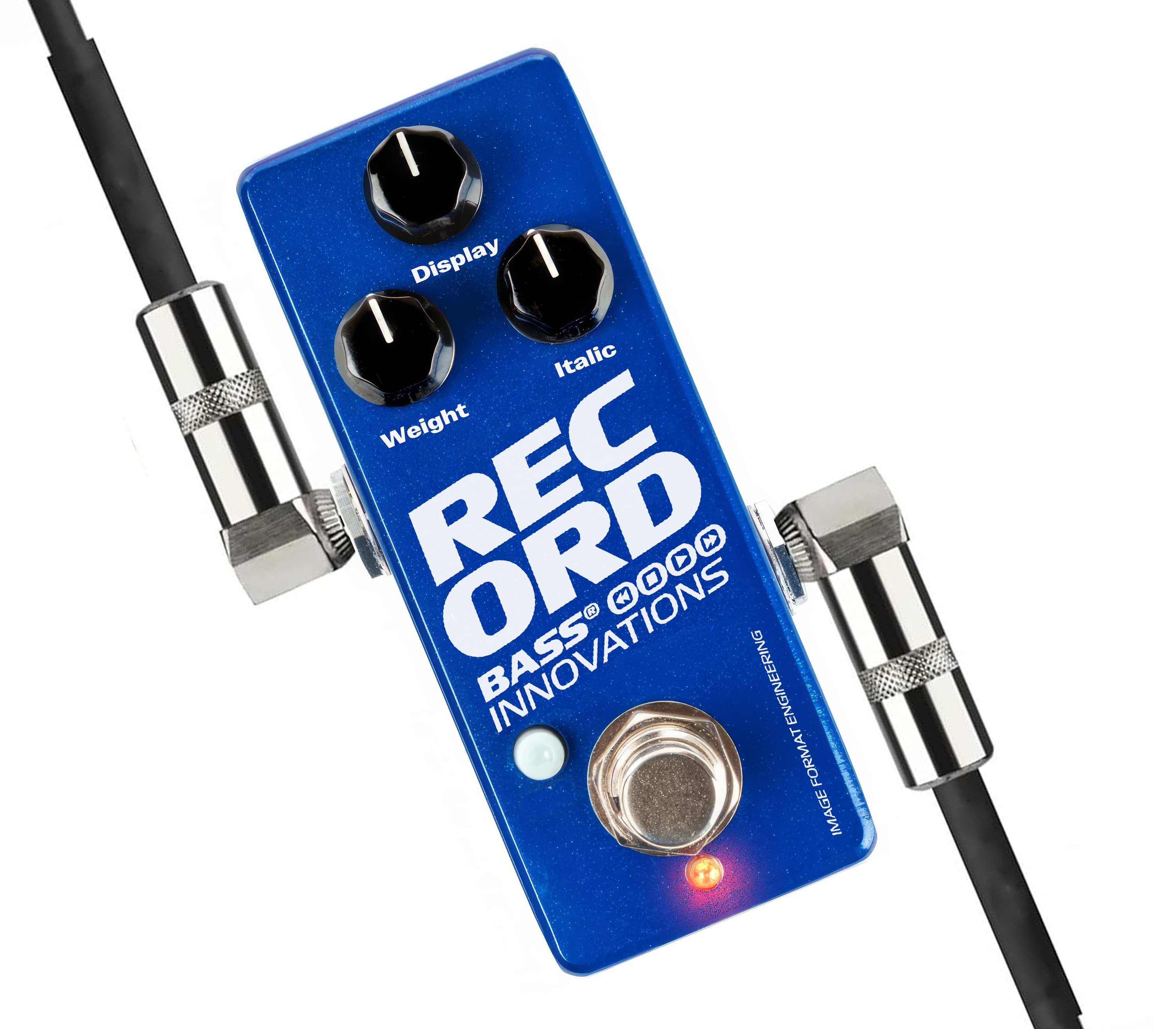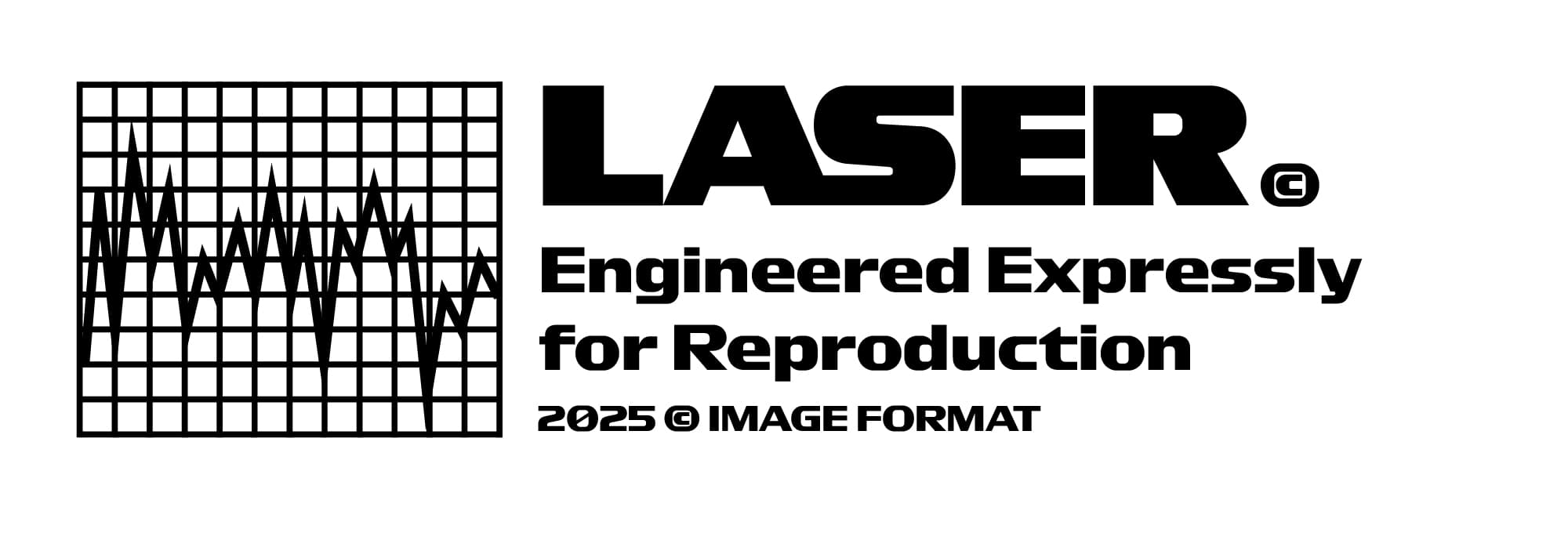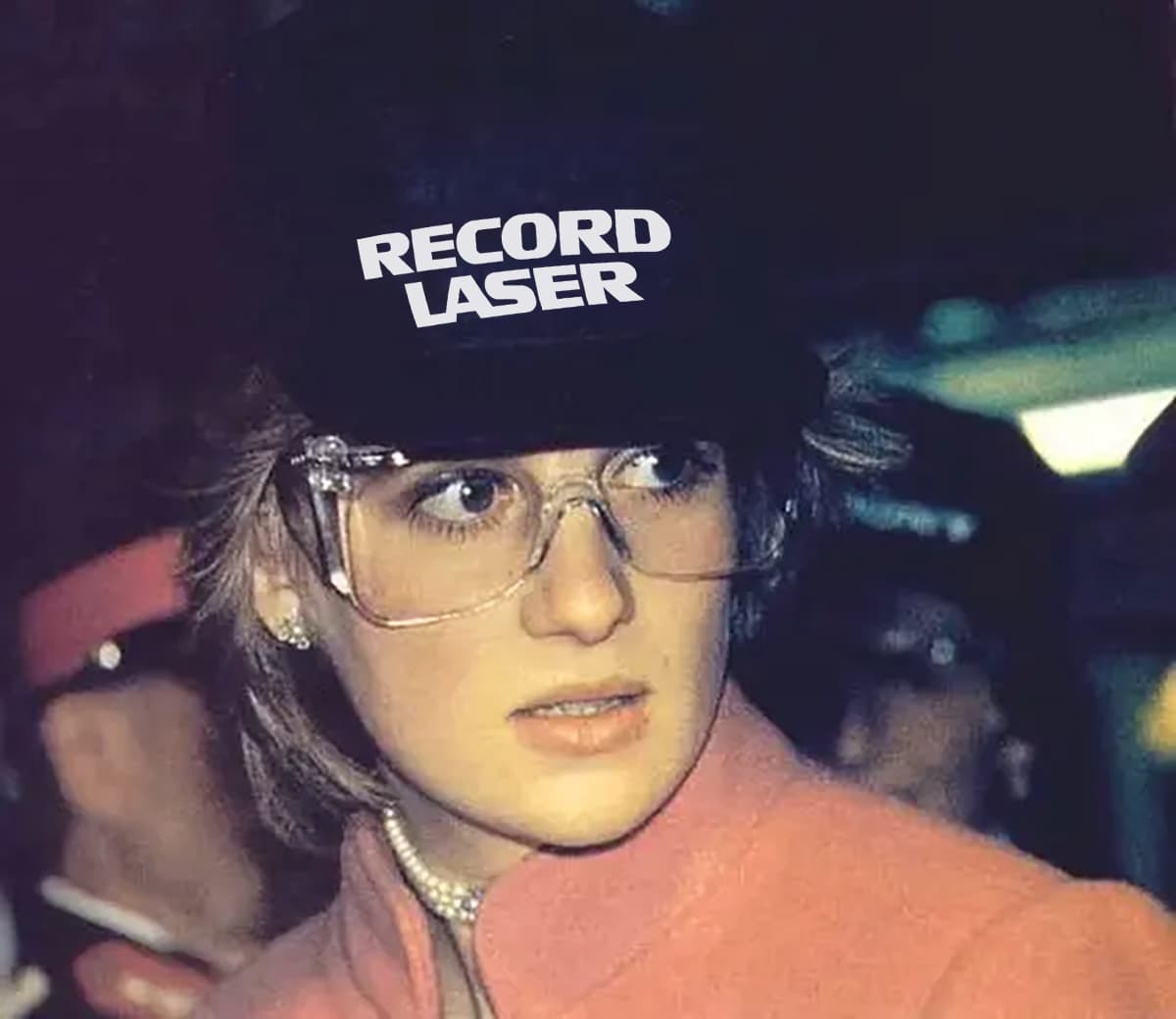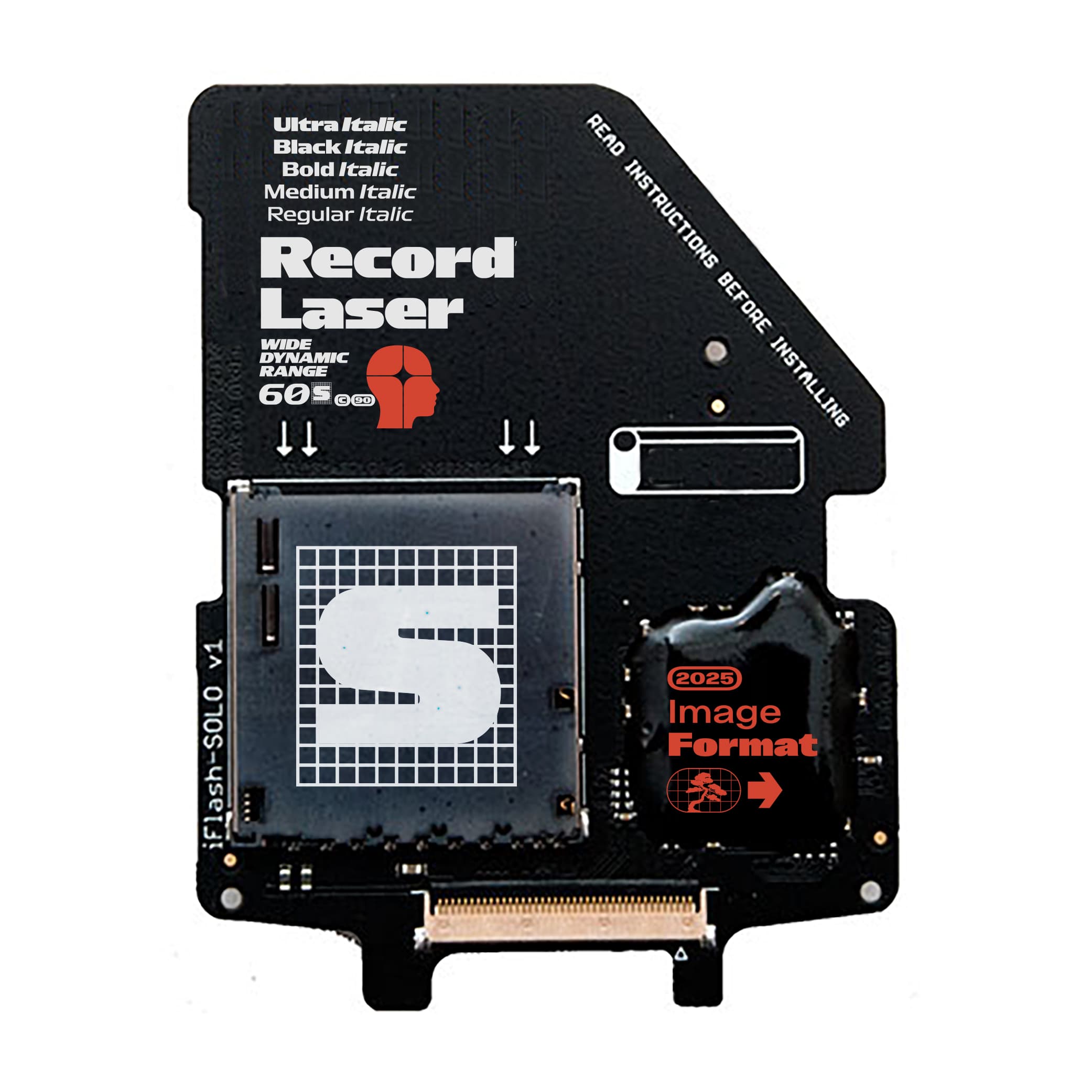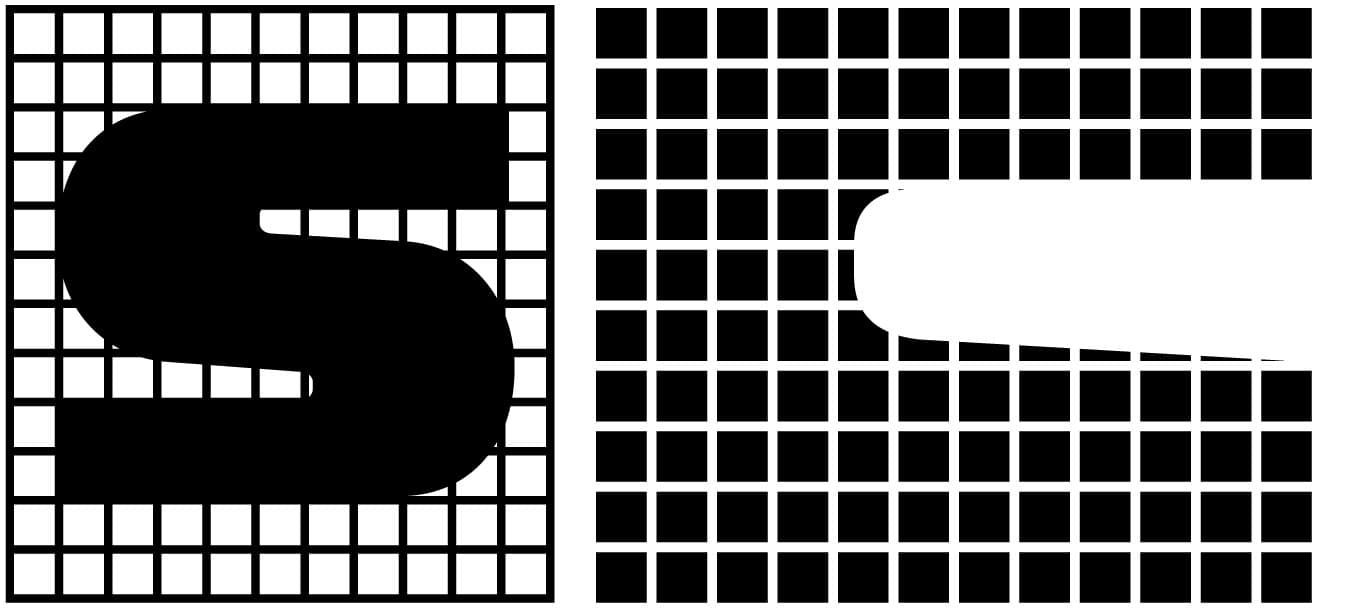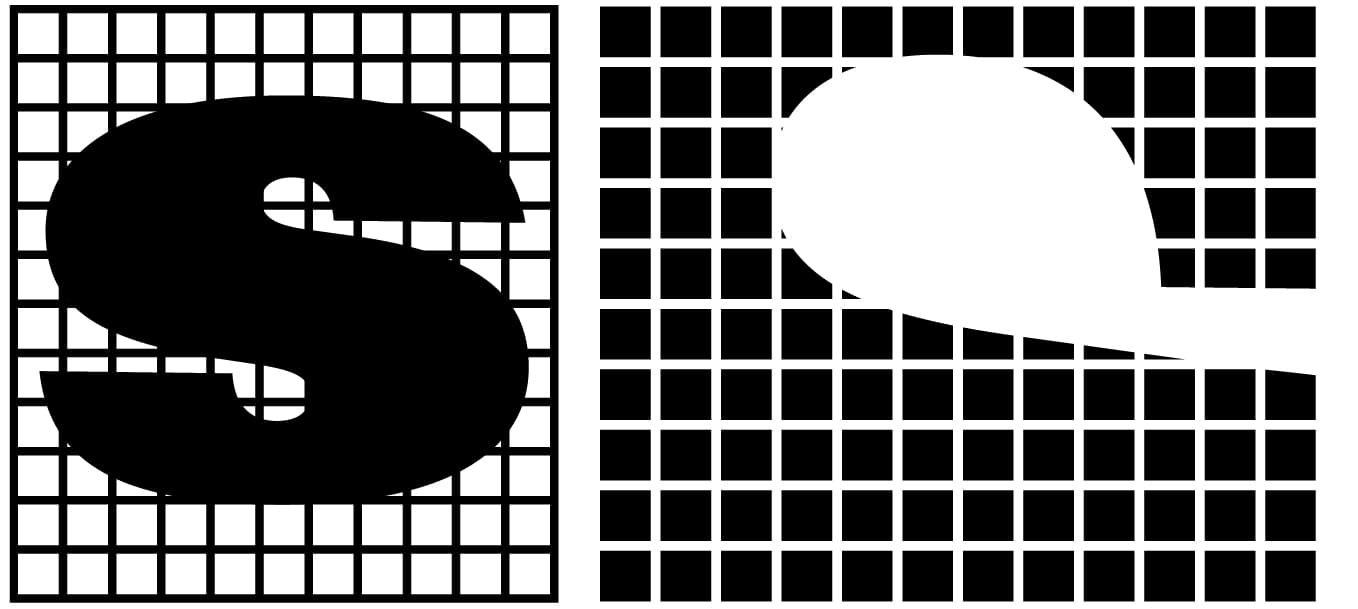
Record Laser
Record represents a balance between an update and a testimony. Not only does it take us back to a time when music was transmitted over cables and collected on shelves, it also brings this aesthetic up to date with contemporary standards of typographic design.